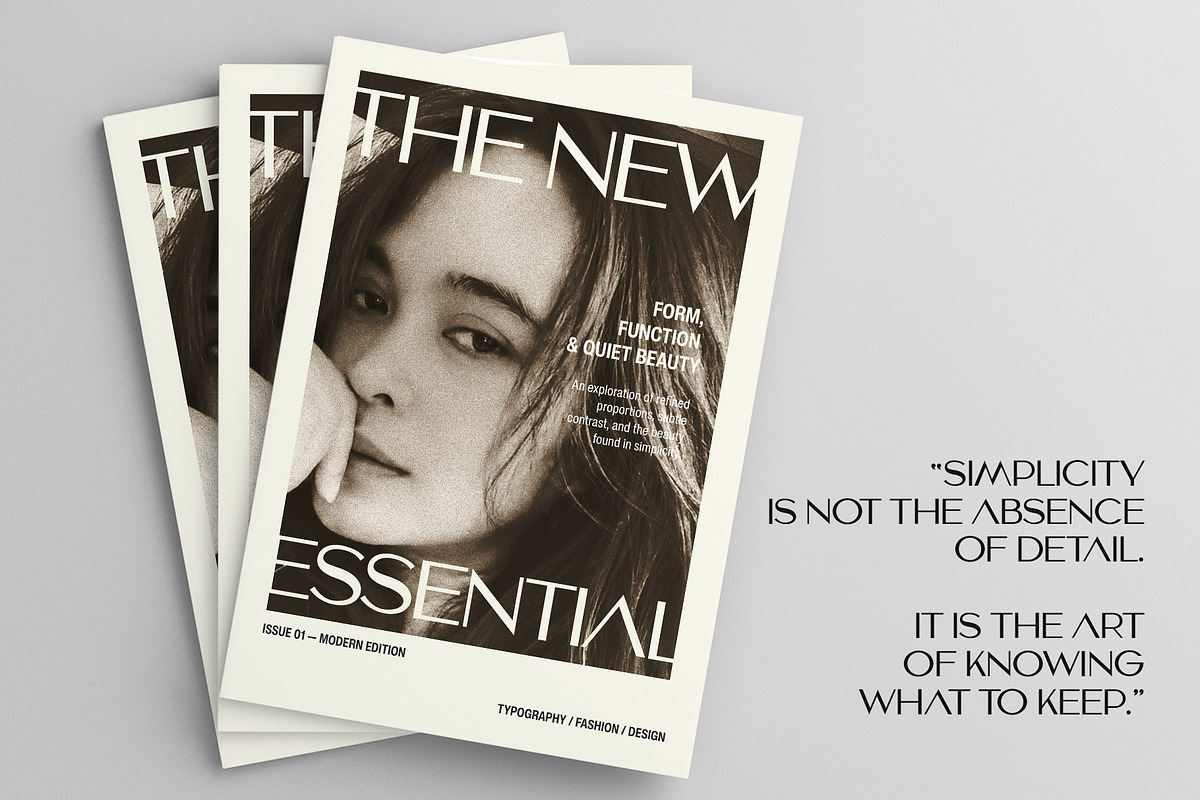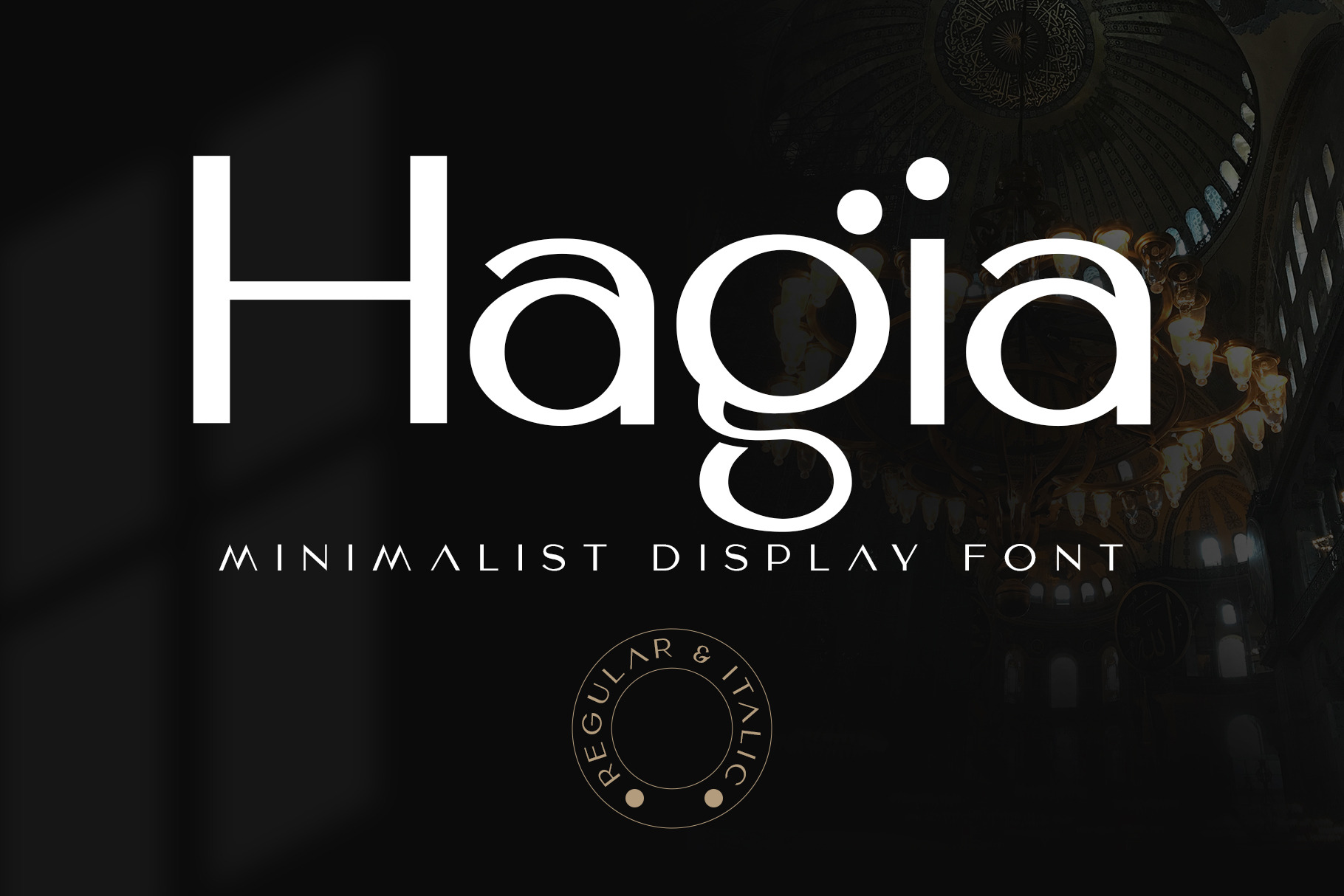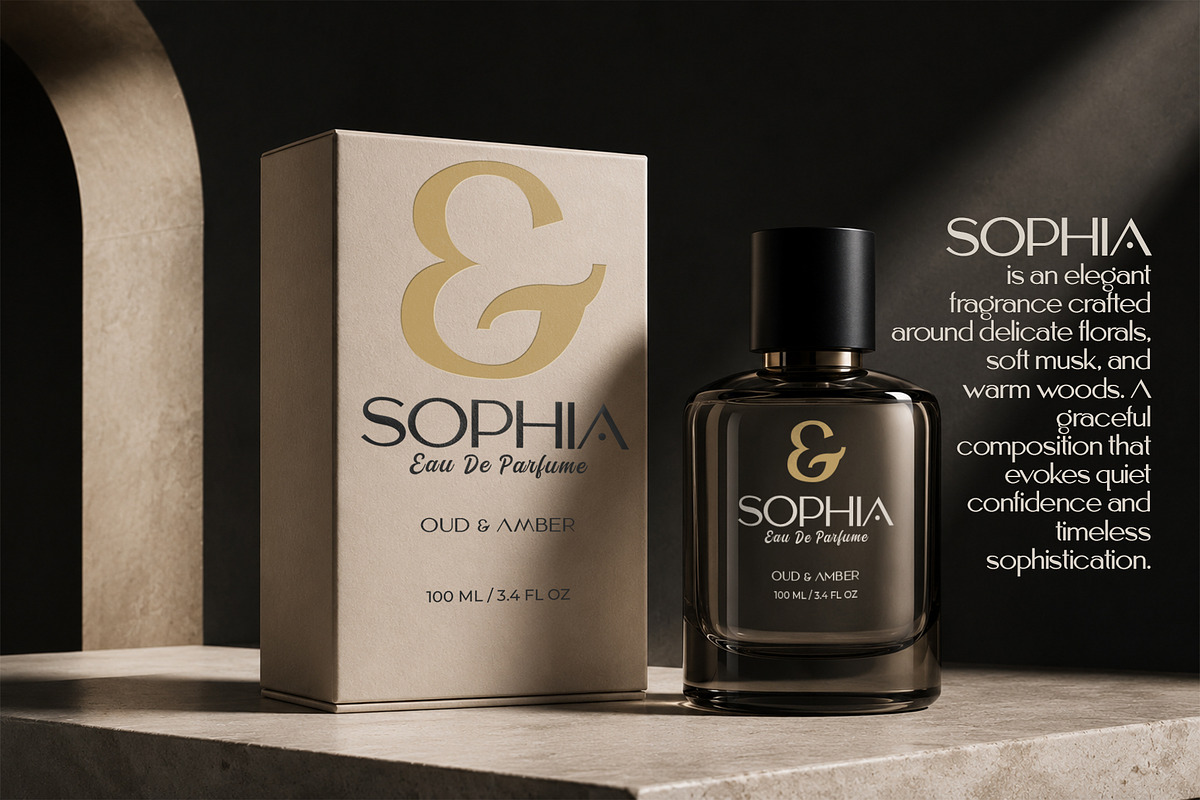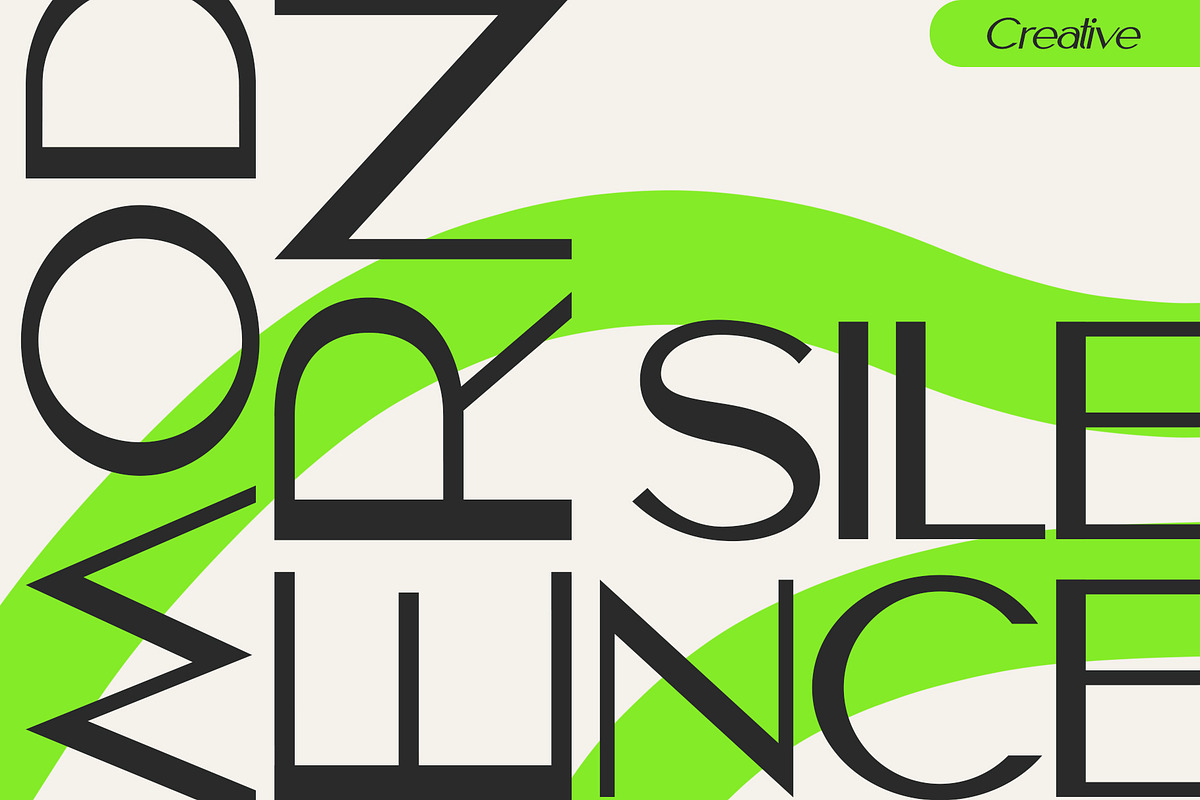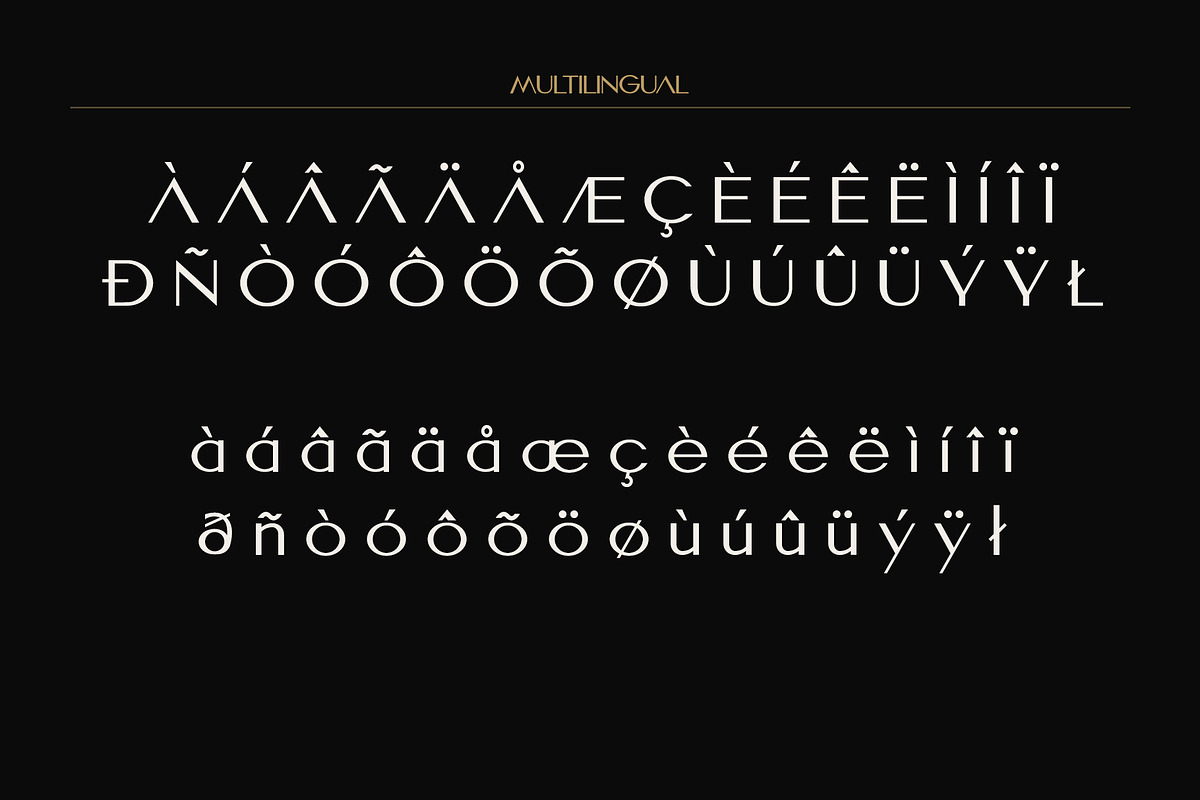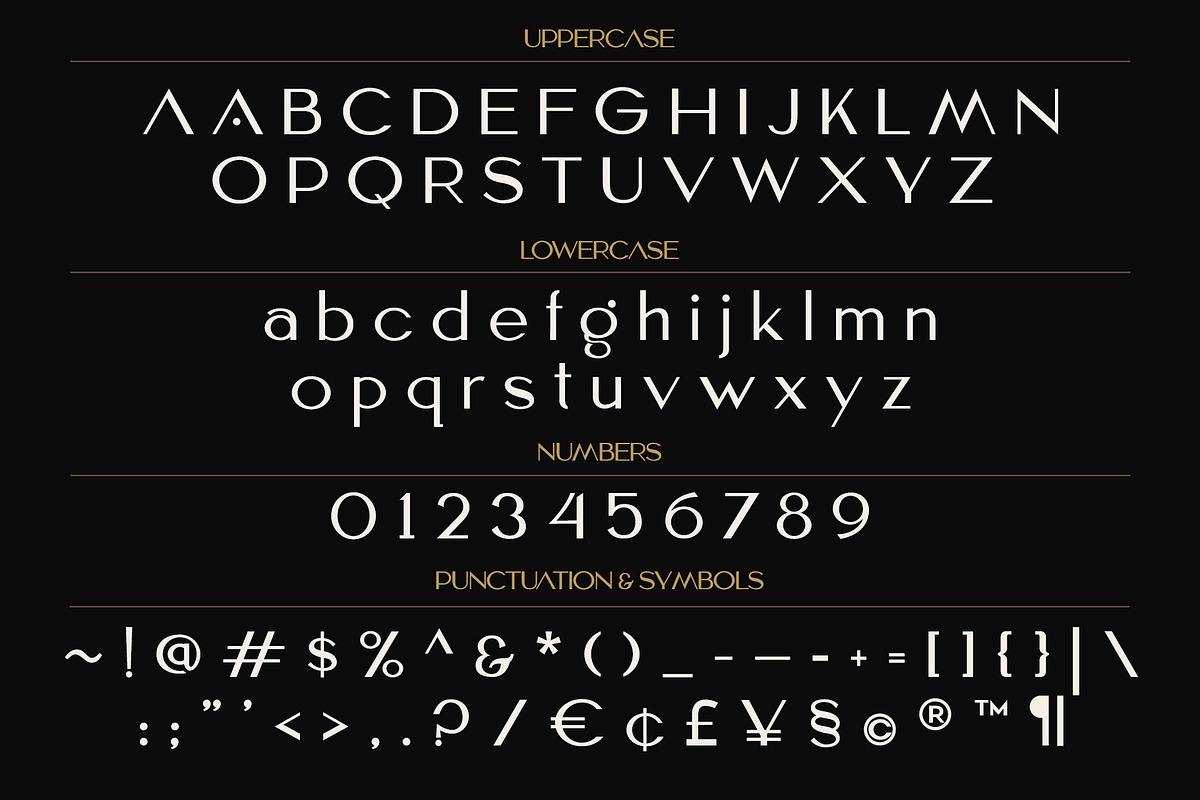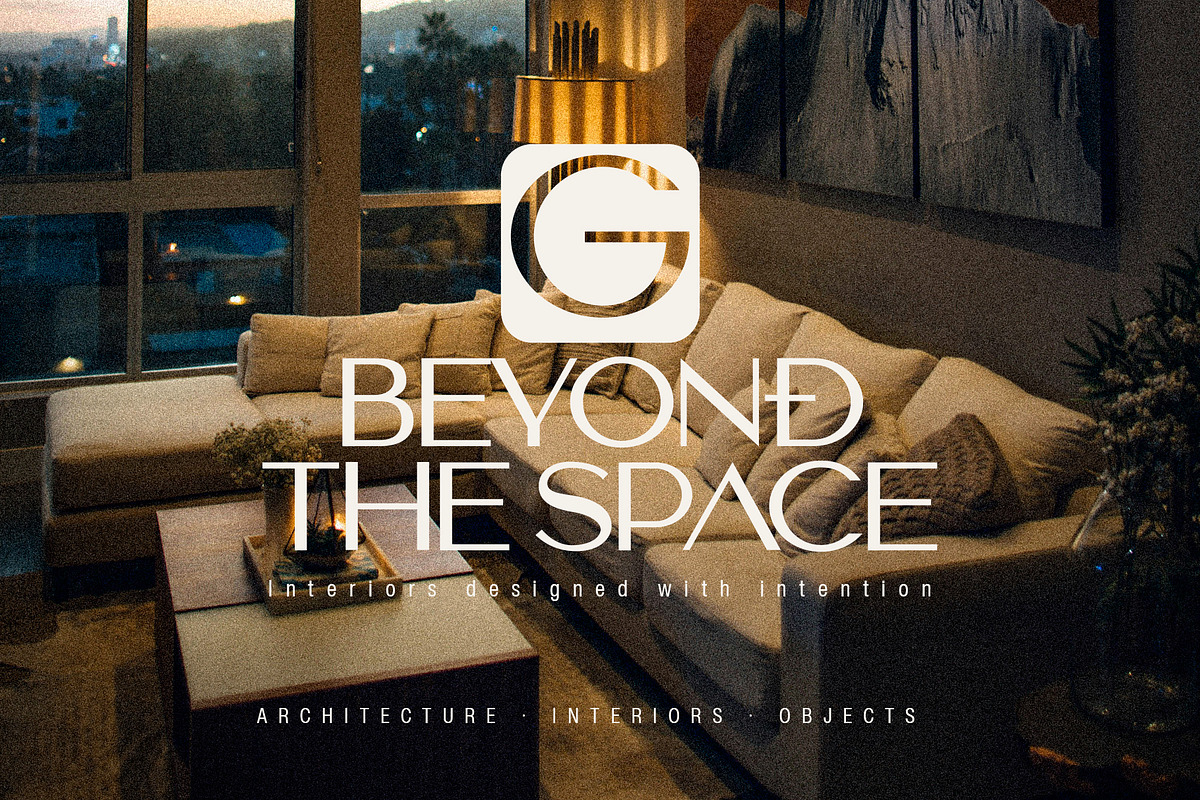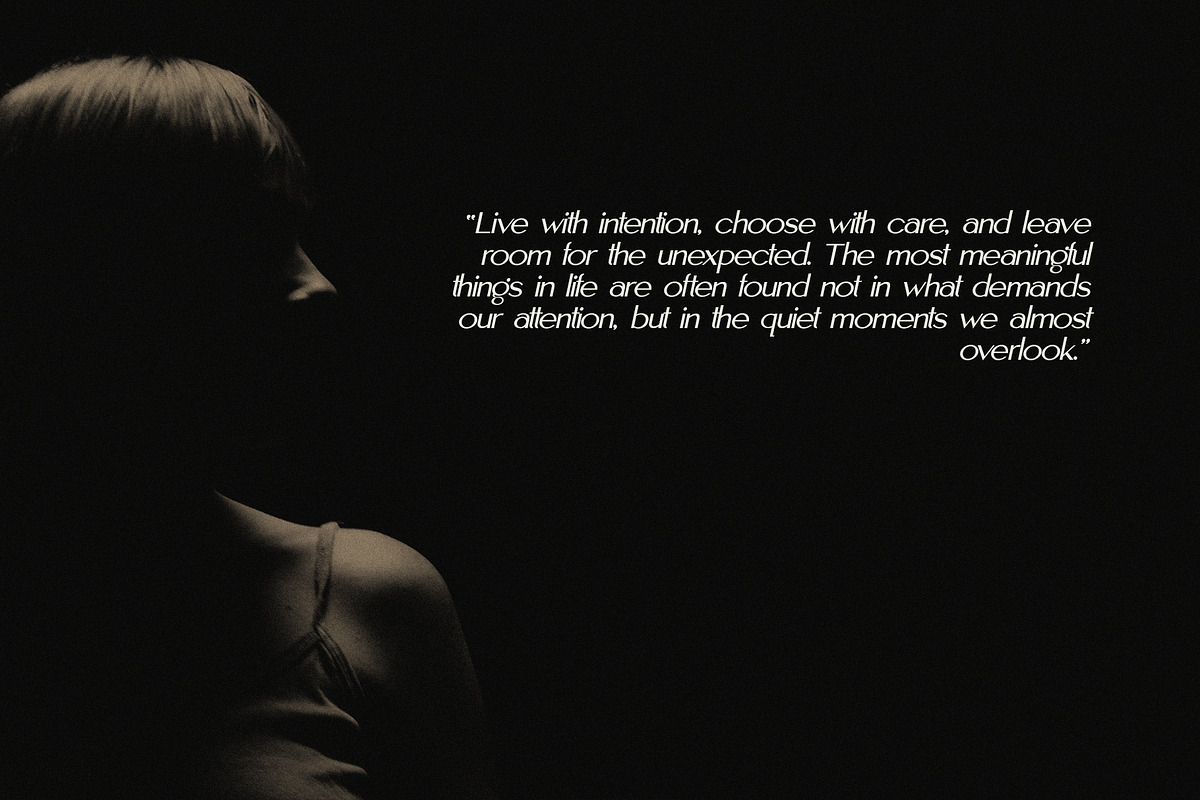
Hagia – Elegant Minimalist Font
Description
Hagia is a modern minimalist display font designed for elegant branding, editorial design, fashion, beauty, and luxury projects. With refined proportions, subtle contrast, and distinctive clean letterforms, Hagia brings a sophisticated contemporary feel to your designs.
Regular & Italic